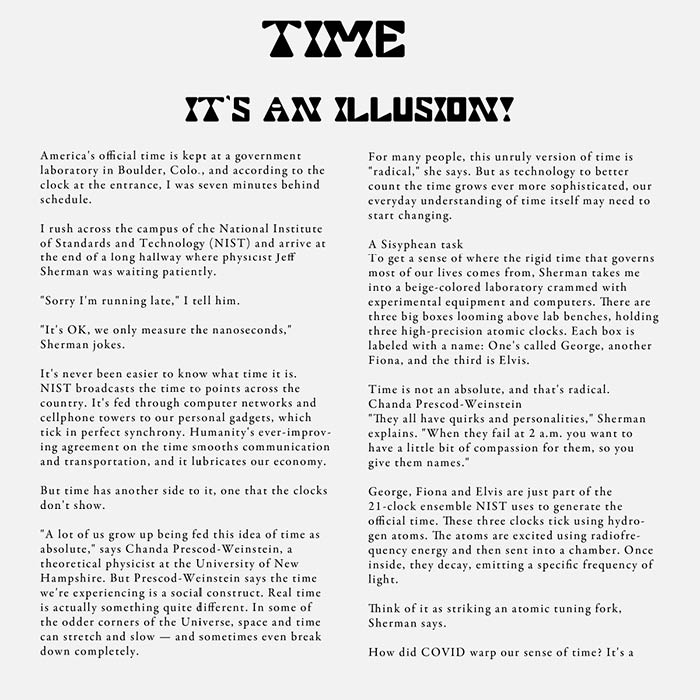
• This font is inspired by the hourglass shape and the feel of heavy and stable, which gives it a funky and geometric look. While being bold, it also has high contrast due to the hourglass shape in many of the charachters. This font works best as a display typeface.